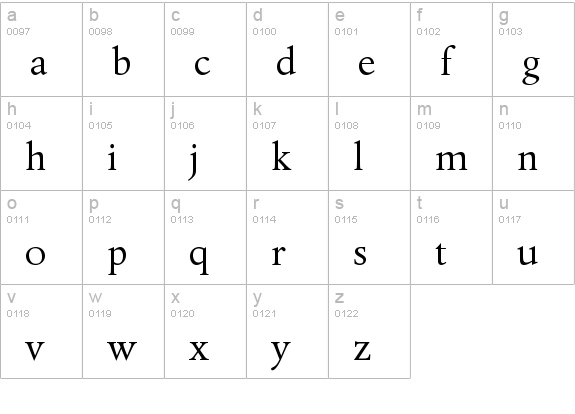
The DTLAlbertinaT font is a captivating typeface that exudes elegance and sophistication. Its delicate yet bold strokes make it perfect for a wide range of design projects, from branding to editorial layouts. This versatile font is sure to make a lasting impression with its timeless appeal. What's even better is that DTLAlbertinaT is available for free download at FontsMarket.com. You can easily access this stunning font and elevate your designs with its unique charm. Don't miss out on the opportunity to enhance your creative projects with the beauty of DTLAlbertinaT - download it today and let your creativity soar!